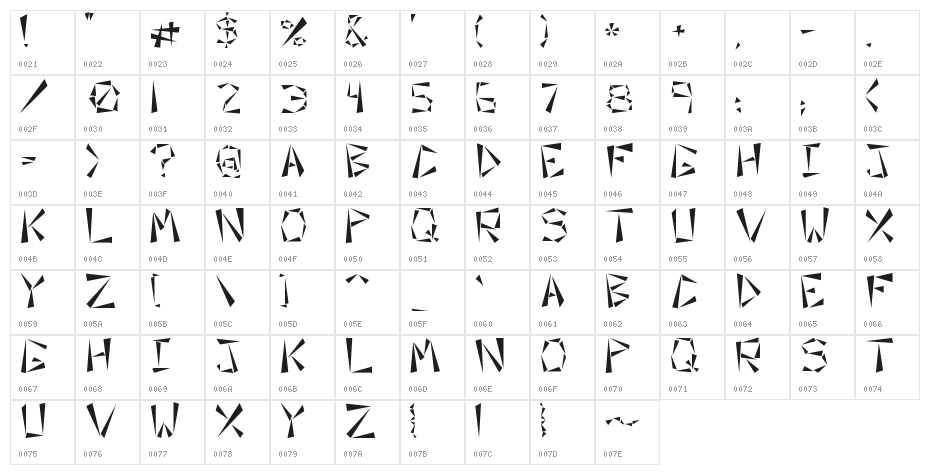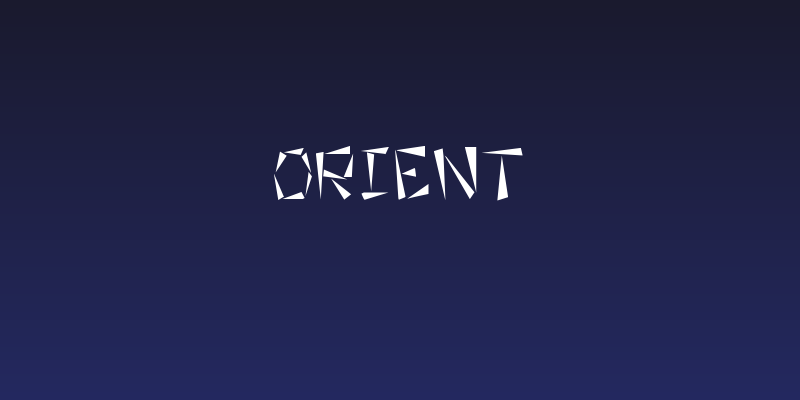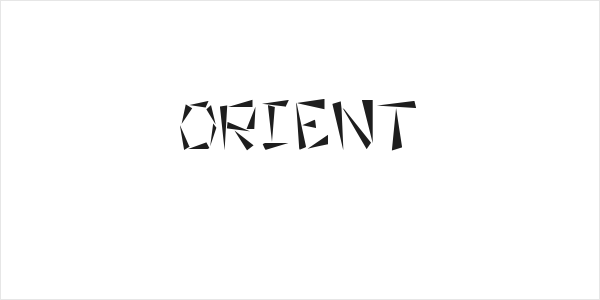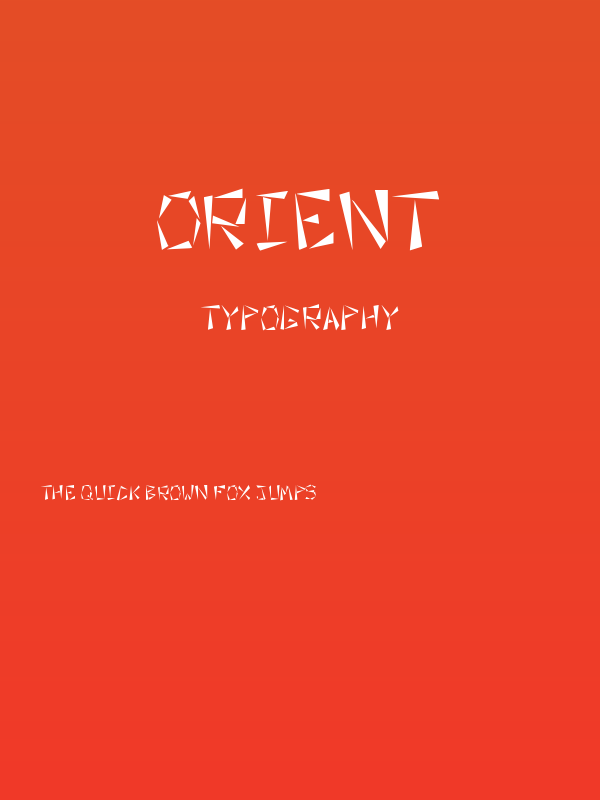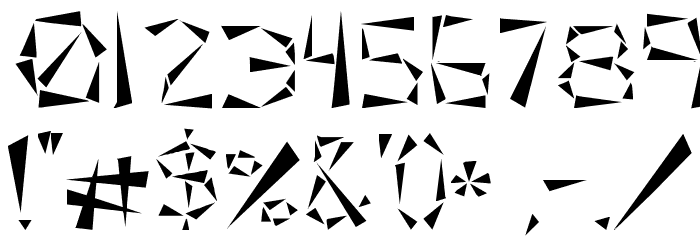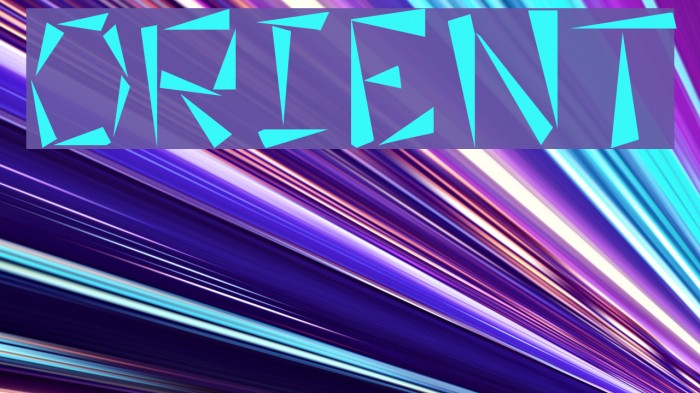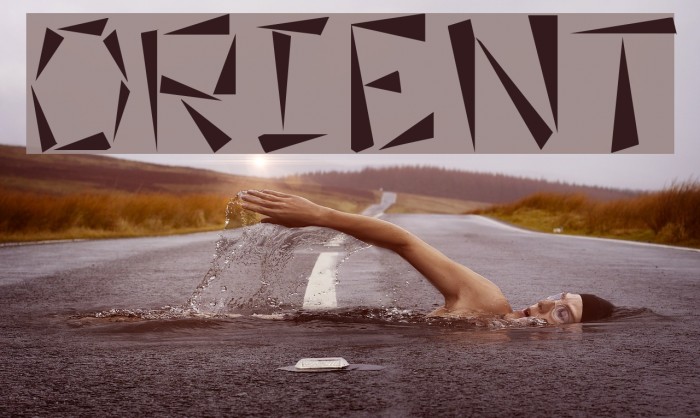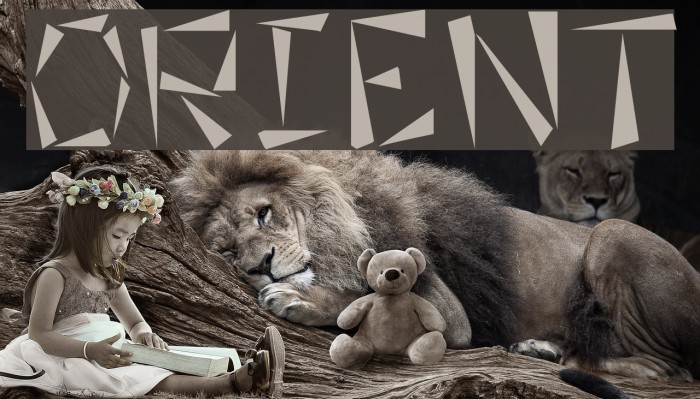
Orient Font
This font features a unique, angular design with sharp, geometric shapes that create a striking visual impact. Each character is composed of fragmented, triangular elements that give it a dynamic and edgy appearance. The uppercase letters are bold and commanding, while the lowercase letters maintain the same angular style, ensuring consistency throughout the typeface. The numbers and special characters follow the same design principle, making the font versatile for various applications. Its distinctive style makes it suitable for projects that require a modern and unconventional look.
| Proposed Projects | Ideal for modern branding, edgy posters, album covers, and creative digital art. |